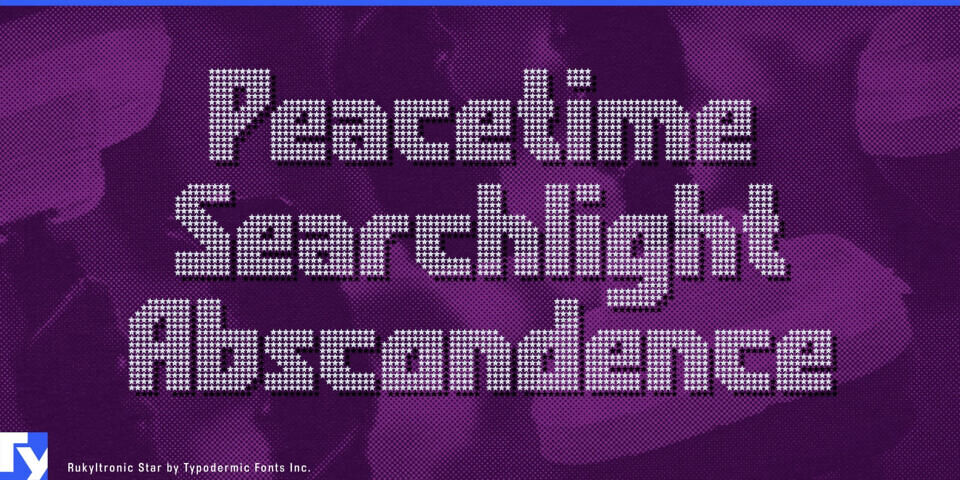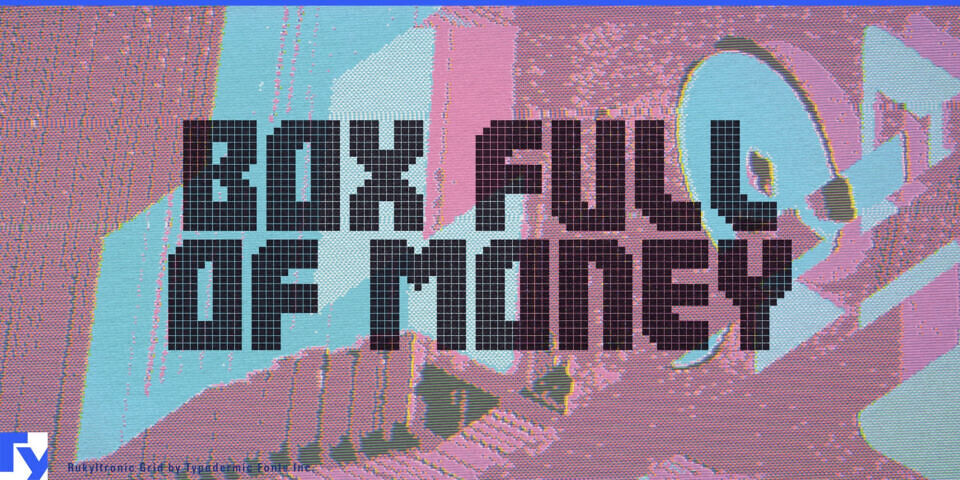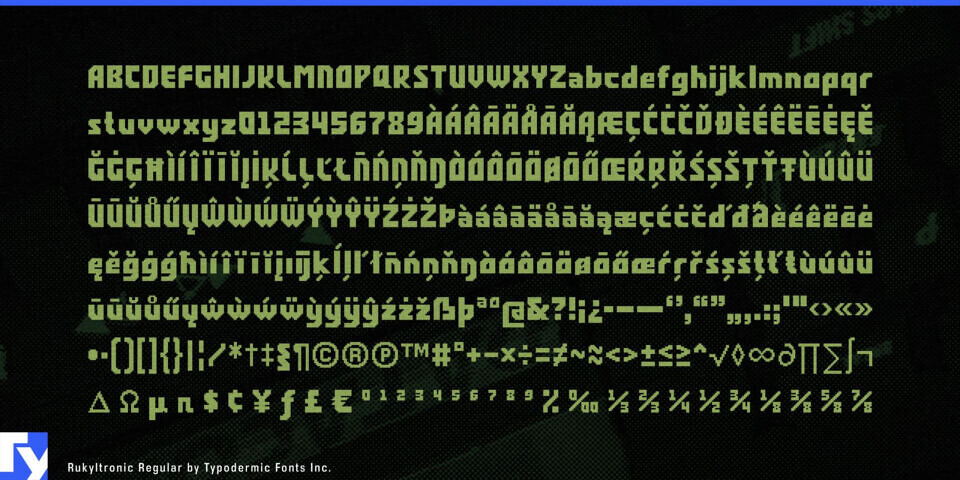
Rukyltronic is a pixel-grid typeface with blocky forms, angled corners, and textured fills that give designs instant digital character. Different pixel patterns add visual texture while keeping the letters clear and punchy.
Its bold bitmap rhythm works well for game interfaces, esports branding, posters, tech events, and retro-inspired graphics. With strong legibility and broad Latin language support, Rukyltronic brings raw pixel energy to modern design.